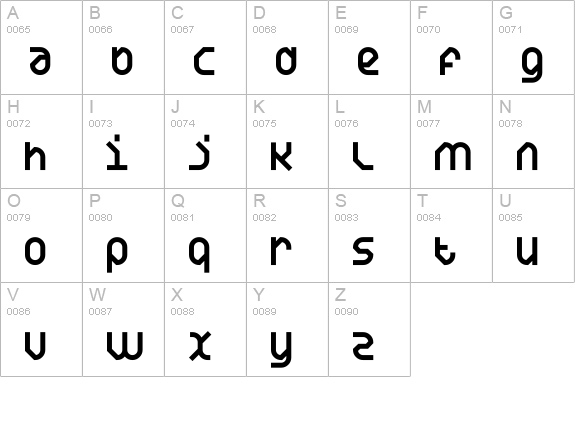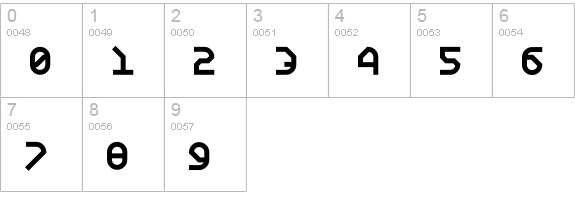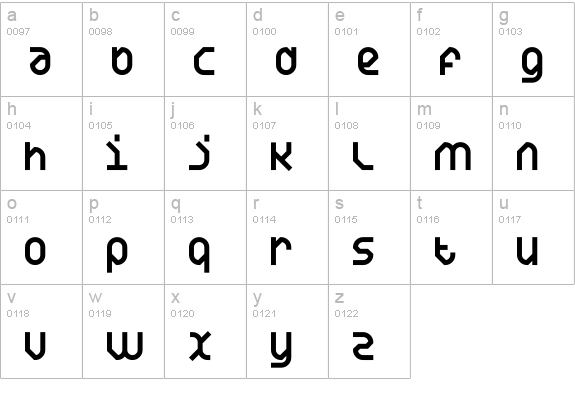
DS Yakuti65 Font Details
DS Yakuti65 is a modern and stylish font that exudes elegance and sophistication. With its sleek lines and unique design, this font is perfect for a wide range of projects, from branding to editorial design. The DS Yakuti65 font is versatile and can be used in both digital and print media, making it a valuable addition to any designer's toolkit. The best part? DS Yakuti65 is available for free download at FontsMarket.com. This means that you can easily access this high-quality font without any cost, making it a budget-friendly option for your design projects. Don't miss out on the opportunity to enhance your designs with the DS Yakuti65 font - download it for free today!